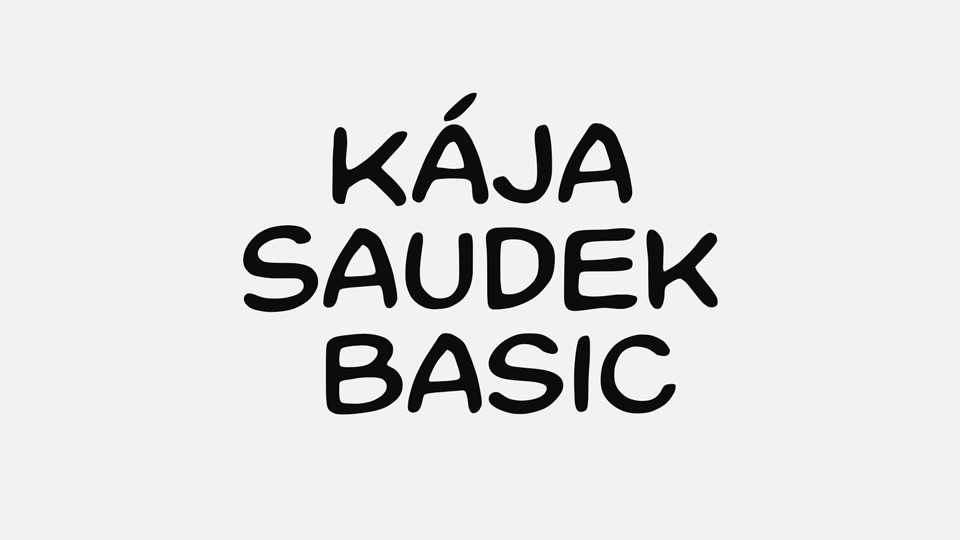
Download Kája Saudek Basic font, a handwritten typeface intended mainly for comics lettering. It’s based on hand written letters by Kája Saudek mostly from his graphic novel Muriel a andělé (Muriel and Angels).
Designer: Vít Čondák